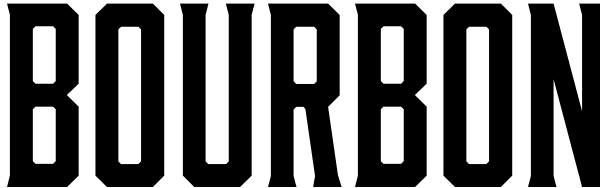
Bourbon
Like a brother to Gin, Bourbon is a condensed display typeface inspired by serifs from whiskey bottles and old packaging. The letters play well with subtle, distressed textures or a nice, good-ole script. Bourbon Rough works best in larger sizes...